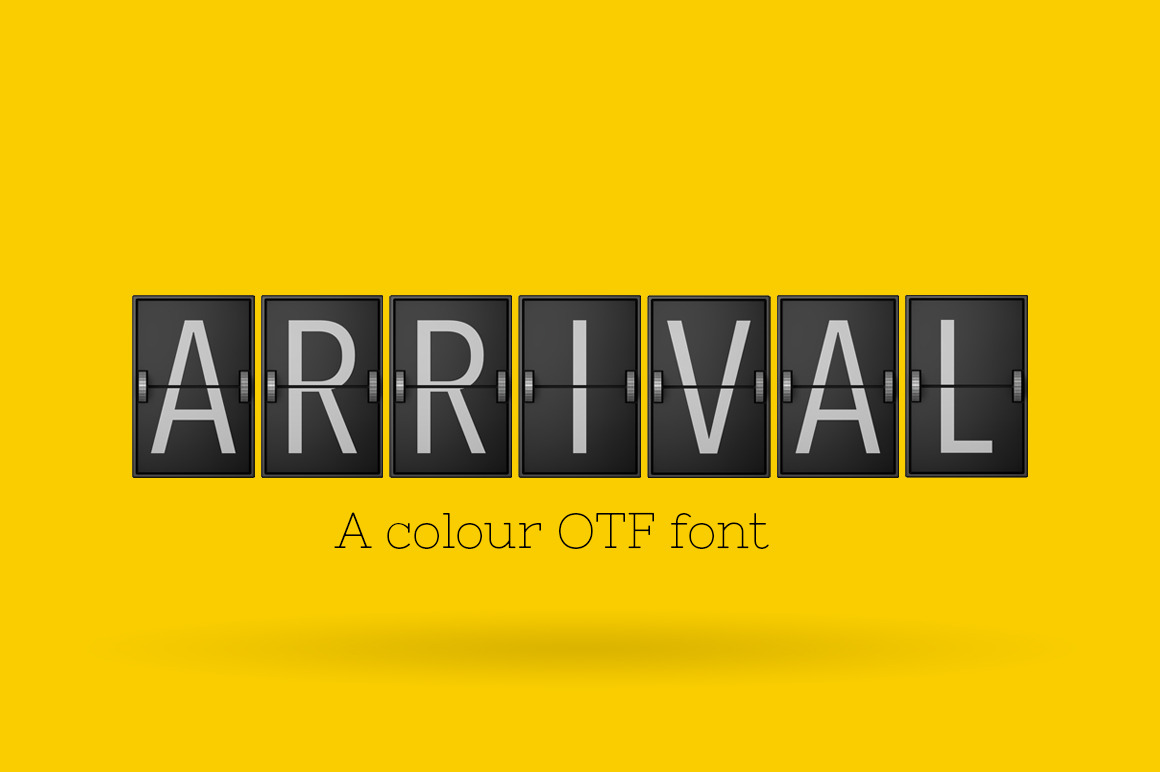
Arrival - Typeface
Say hi to Arrival
Arrival a colour font designed to look like an arrivals and departure board. Each letter has been created in 3D and converted into an OTF font. The font includes a blank tile as the fullstop which can be used as an alternative space. The Font is Capital letters ONLY. It does NOT include numbers